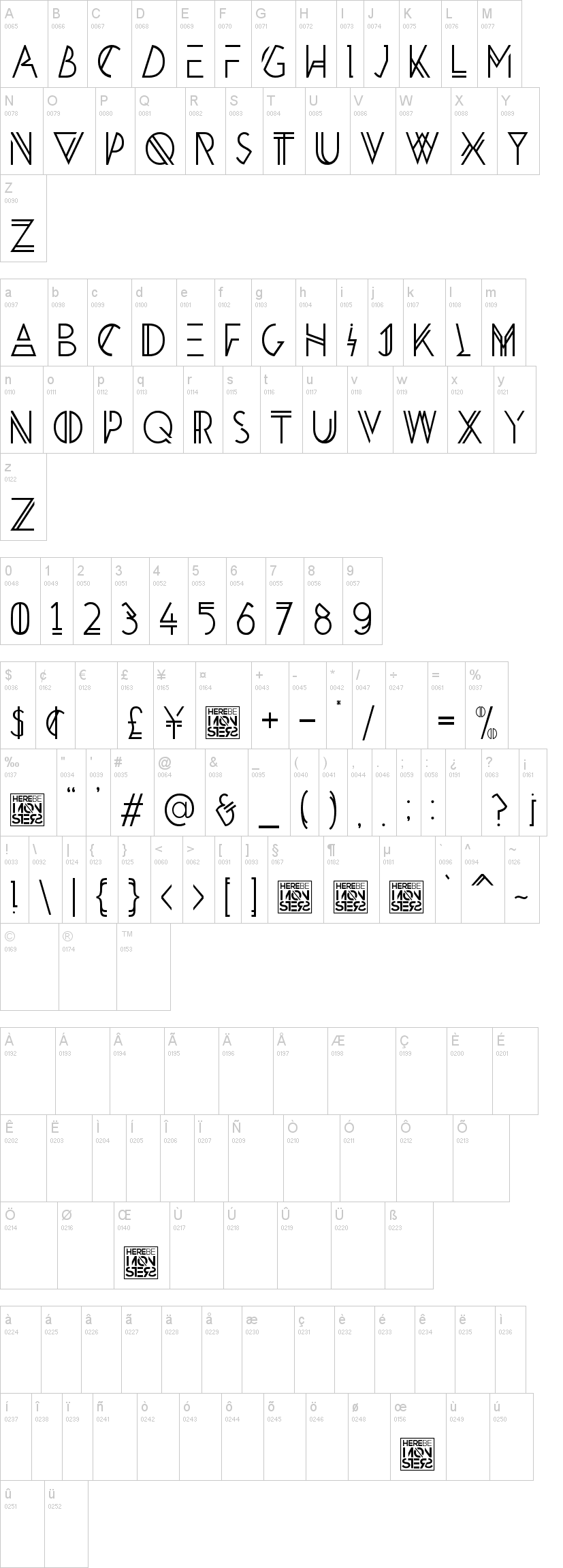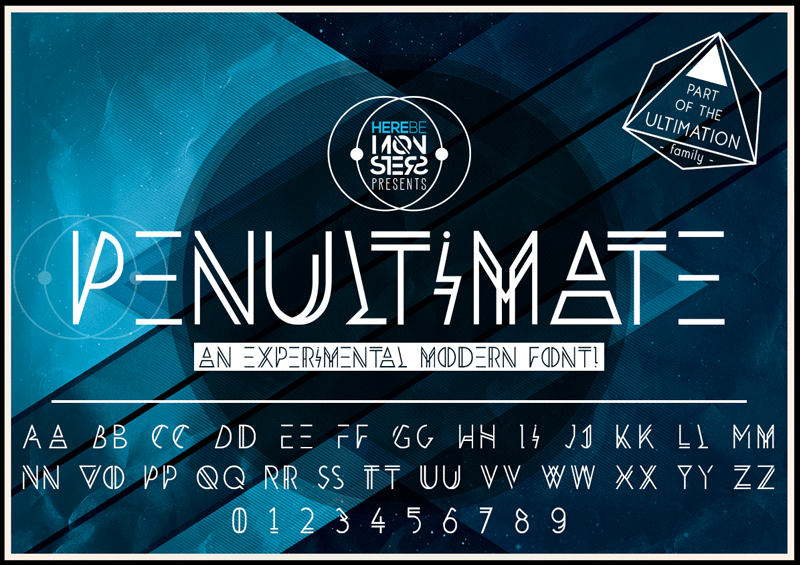
HBM Penultimate
Note of the authorPenultimate is an experimental, modern sans serif, display typeface built on HBM Ultimation font family. With atypical character alternatives and clean cut edges as found with HBM Razed, Penultimate is a perfect typeface for posters, logos, titles and more!